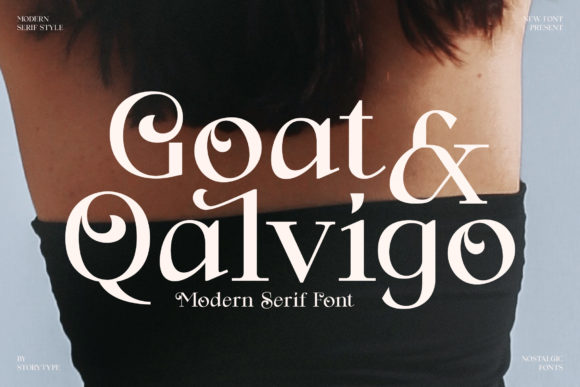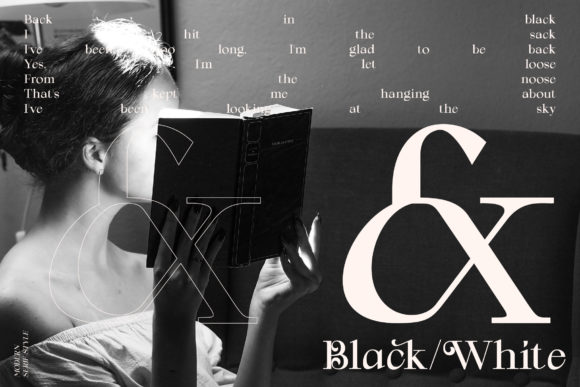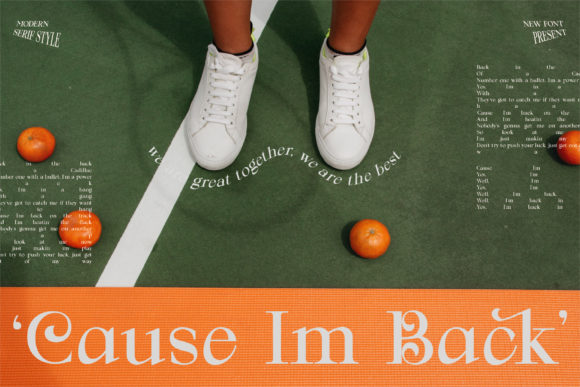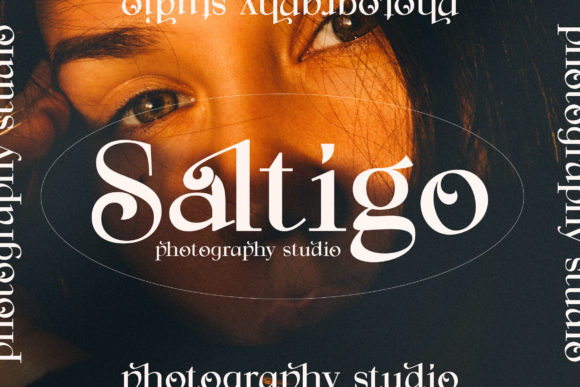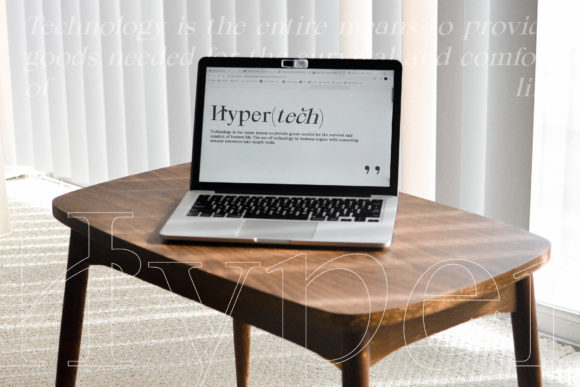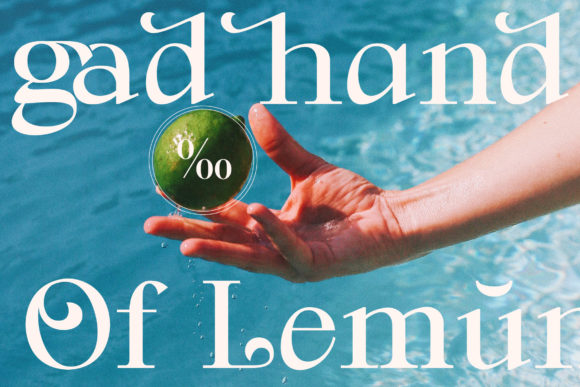
Introducing Goat Qalvigo Font: Elevate Your Designs with Elegance and Sophistication
In the world of typography, a font can make or break a design. For designers and crafters seeking to add a touch of elegance and sophistication to their projects, the Goat Qalvigo Font is an exceptional choice. This stylish and distinct serif font seamlessly blends classy calligraphic influences with a contemporary and fresh feel, making it perfect for a wide range of design applications.
What Makes Goat Qalvigo Font Stand Out?
Goat Qalvigo Font boasts several features that set it apart from other fonts in its category. One of its most notable attributes is its PUA (Private Use Area) encoding. This means that users can easily access all the glyphs and swashes, allowing for greater flexibility and creativity in design projects. Whether you’re working on a logo, branding materials, or digital content, this font provides the tools you need to create something truly unique.
Key Features of Goat Qalvigo Font
- Stylish and Distinct Serif Design: Goat Qalvigo’s serif design is both stylish and distinct, making it perfect for projects that require a touch of sophistication.
- Classy Calligraphic Influences: The font maintains its classy calligraphic influences, giving it a timeless and elegant feel.
- Contemporary and Fresh Feel: Despite its classic roots, Goat Qalvigo feels contemporary and fresh, making it suitable for modern design projects.
- PUA Encoded: The font’s PUA encoding allows for easy access to all glyphs and swashes, providing users with a wide range of creative possibilities.
Goat Qalvigo Font is an excellent choice for designers and crafters looking to elevate their projects with high-quality typography. Its versatility makes it suitable for various design applications, including:
- Logo Design: Create stunning logos that exude elegance and sophistication.
- Branding Materials: Develop a consistent brand identity with a font that communicates refinement and class.
- Digital Content: Enhance your digital content with a font that is both visually appealing and easy to read.
- Print Materials: Use Goat Qalvigo Font to create beautiful print materials, such as brochures, flyers, and business cards.
Tips for Getting the Most Out of Goat Qalvigo Font
To maximize the potential of Goat Qalvigo Font, consider the following tips:
- Experiment with Swashes: Take advantage of the font’s swashes to add a personal touch to your designs.
- Play with Font Sizes: Use different font sizes to create visual hierarchy and emphasize key elements in your design.
- Pair with Complementary Fonts: Combine Goat Qalvigo Font with complementary fonts to create a unique and visually appealing typography.
Goat Qalvigo Font is a stylish and distinct serif font that offers a perfect blend of elegance, sophistication, and creativity. Its PUA encoding and range of glyphs and swashes make it an excellent choice for designers and crafters looking to elevate their projects with high-quality typography. Whether you’re working on a logo, branding materials, or digital content, Goat Qalvigo Font is sure to impress.